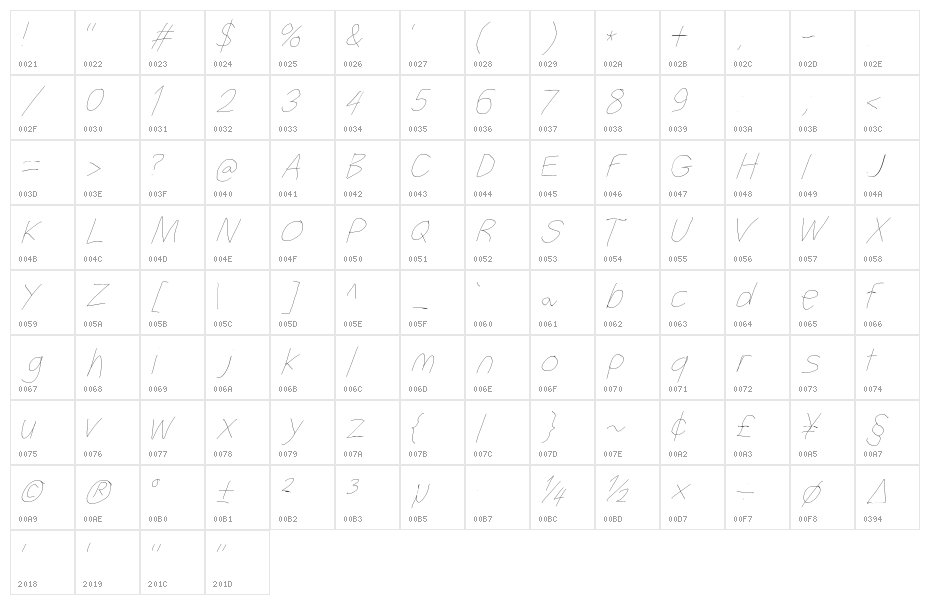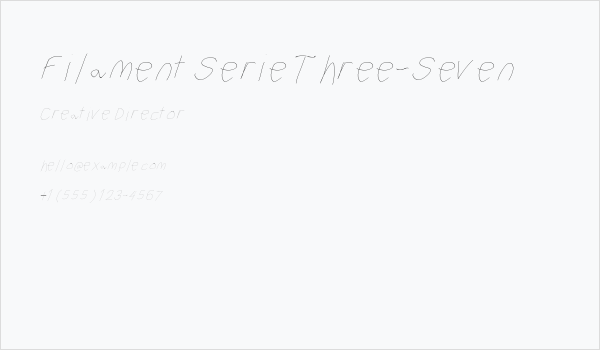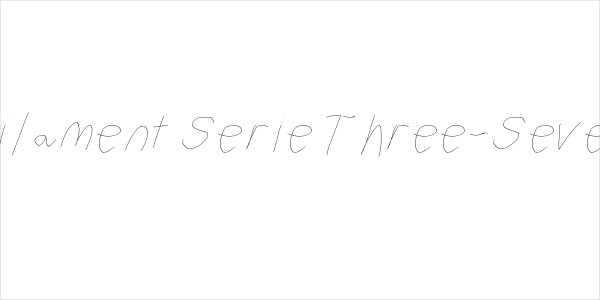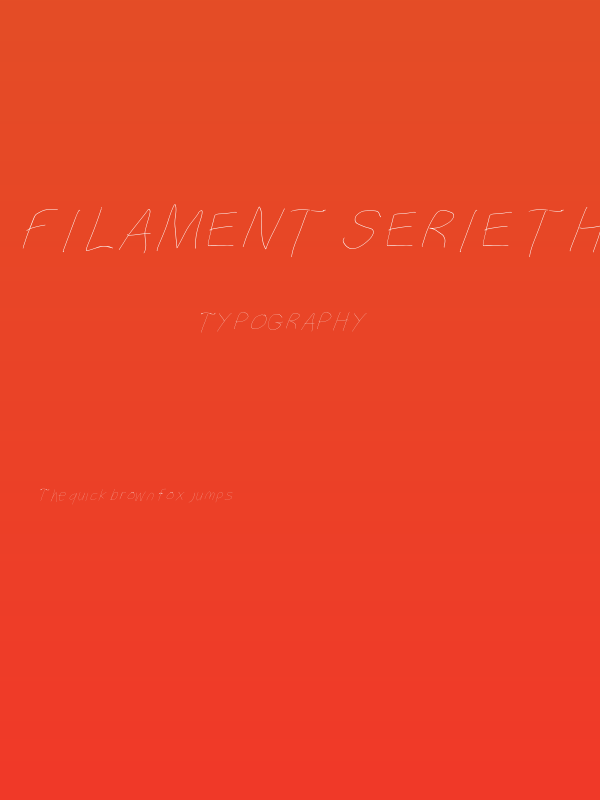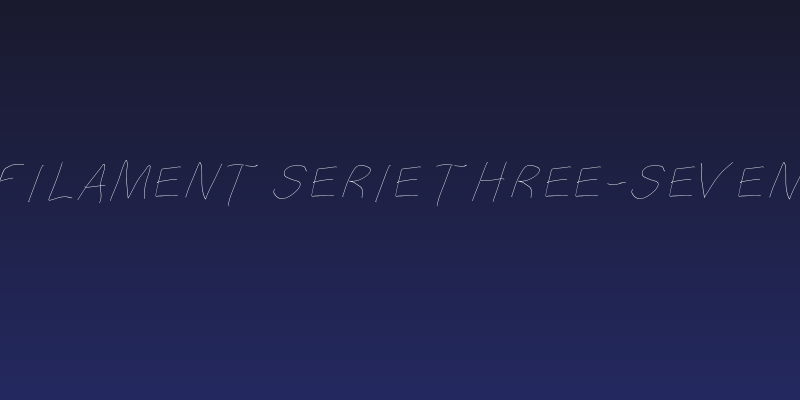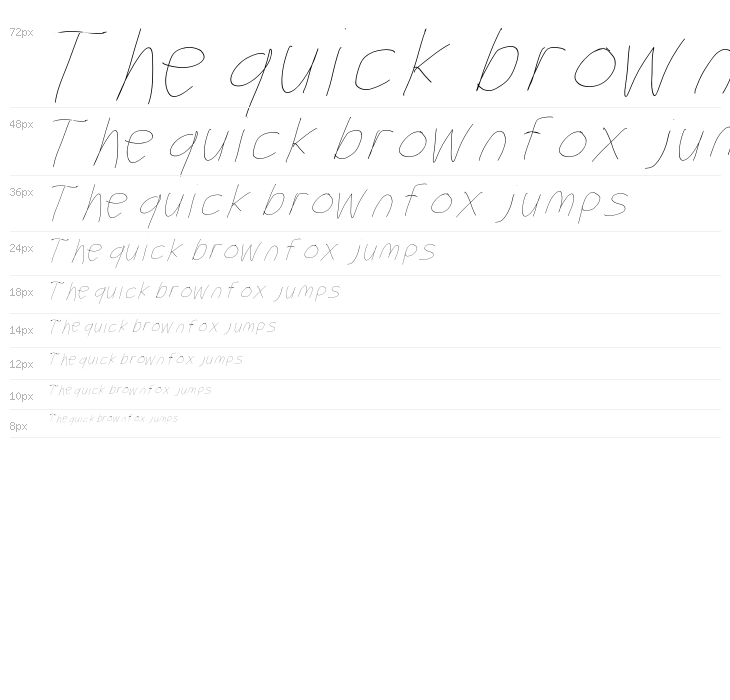
Filament Serie Three-Seven Font
Filament Serie Three-Seven Description
This font features a delicate, handwritten style with thin, flowing lines that give it an airy and light appearance. The characters are slightly slanted, adding a sense of motion and elegance. Uppercase and lowercase letters maintain a consistent style, with rounded edges and smooth curves. The numbers and special characters follow the same aesthetic, ensuring uniformity across all glyphs. The overall design is minimalistic, emphasizing simplicity and readability while retaining a personal touch.
| Use Case | Logos, Invitations, Personal notes |
| Proposed Projects | Ideal for personal invitations, greeting cards, or any project requiring a touch of elegance and personality. |